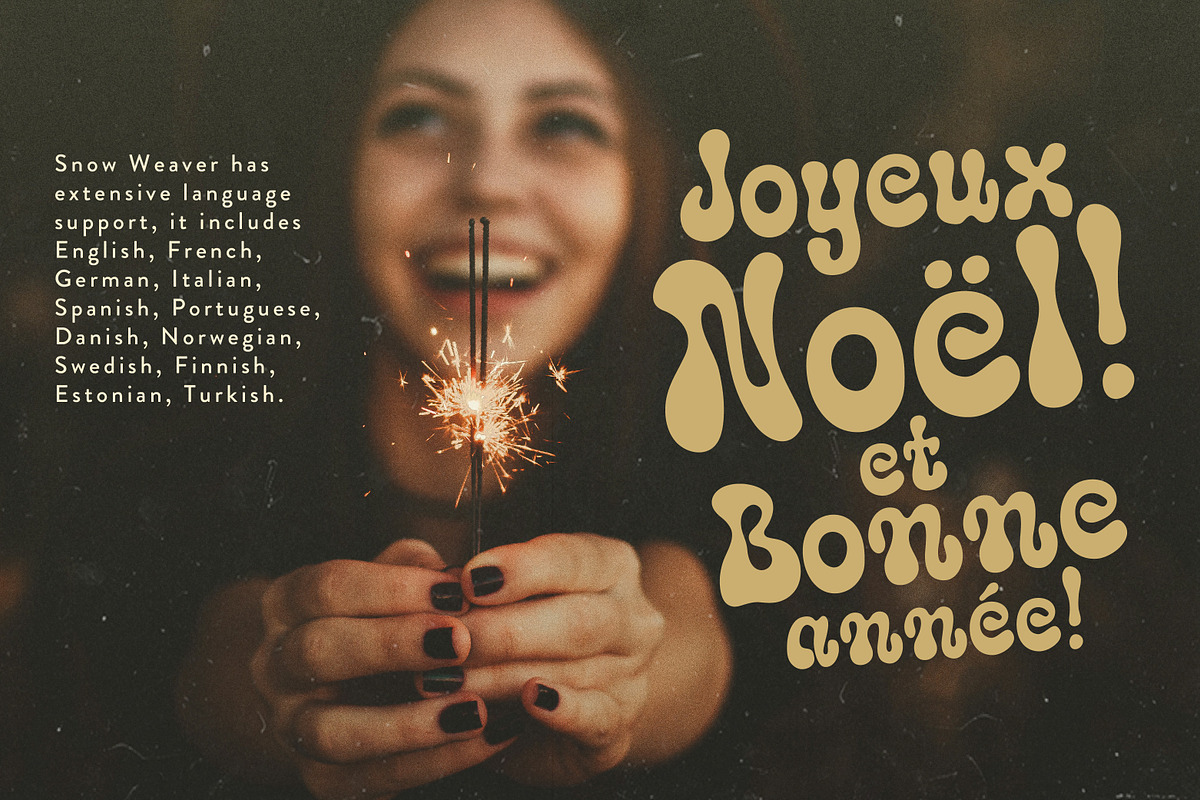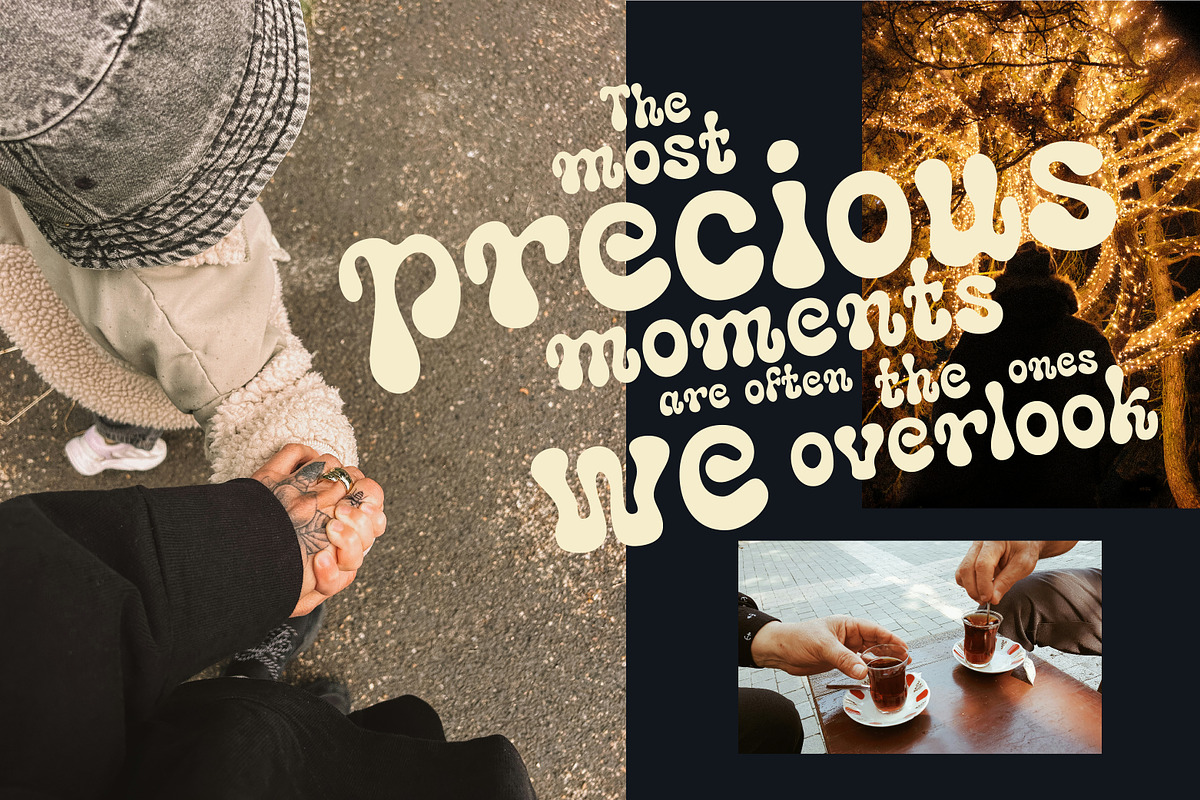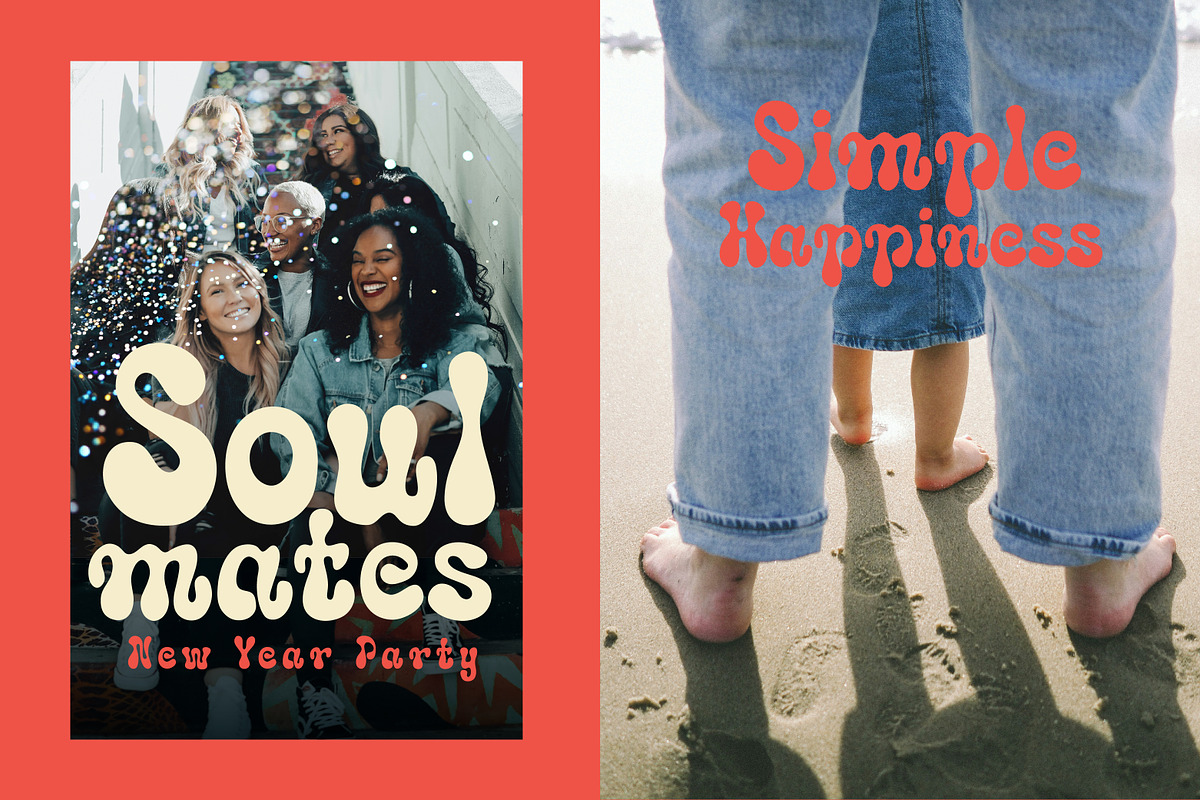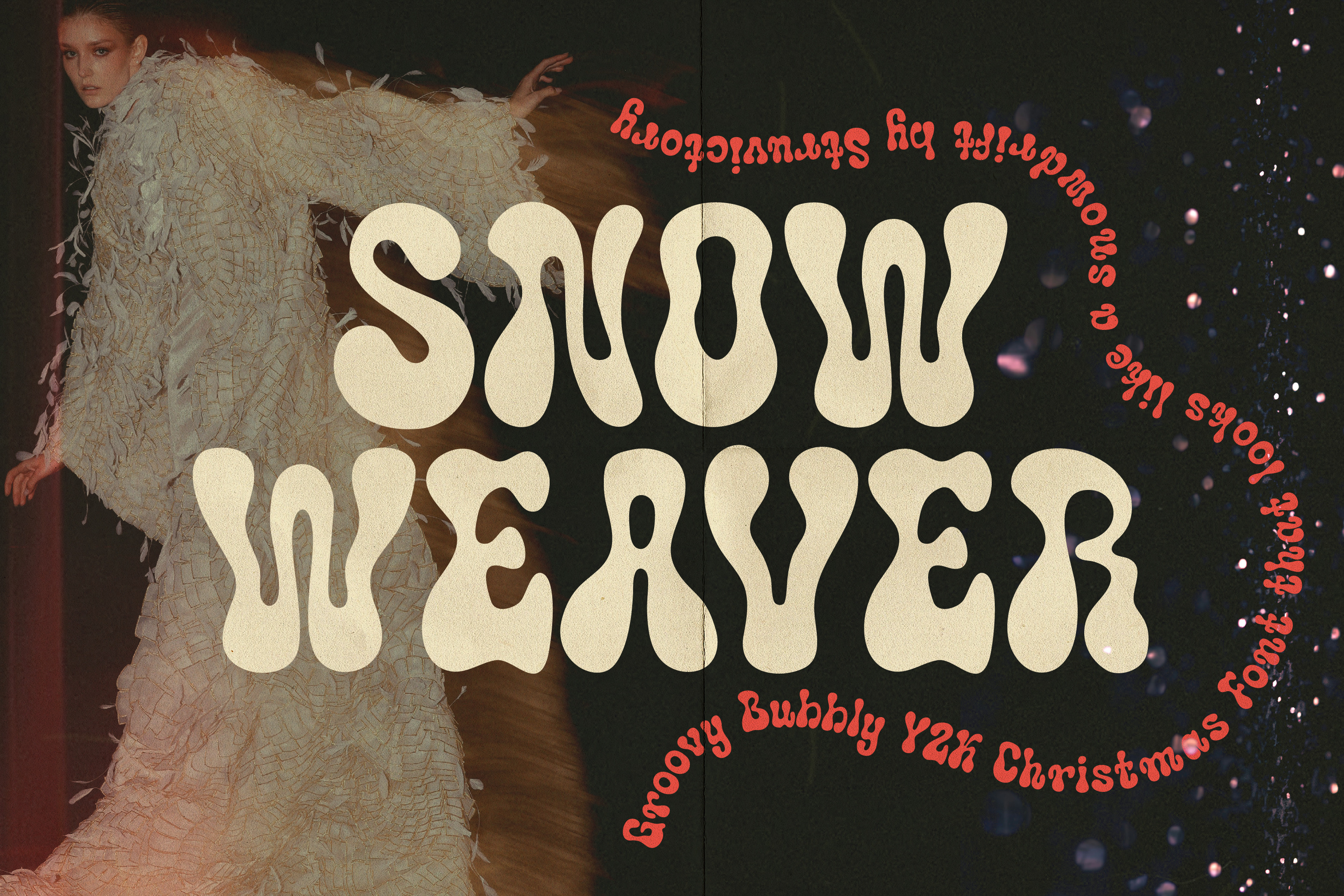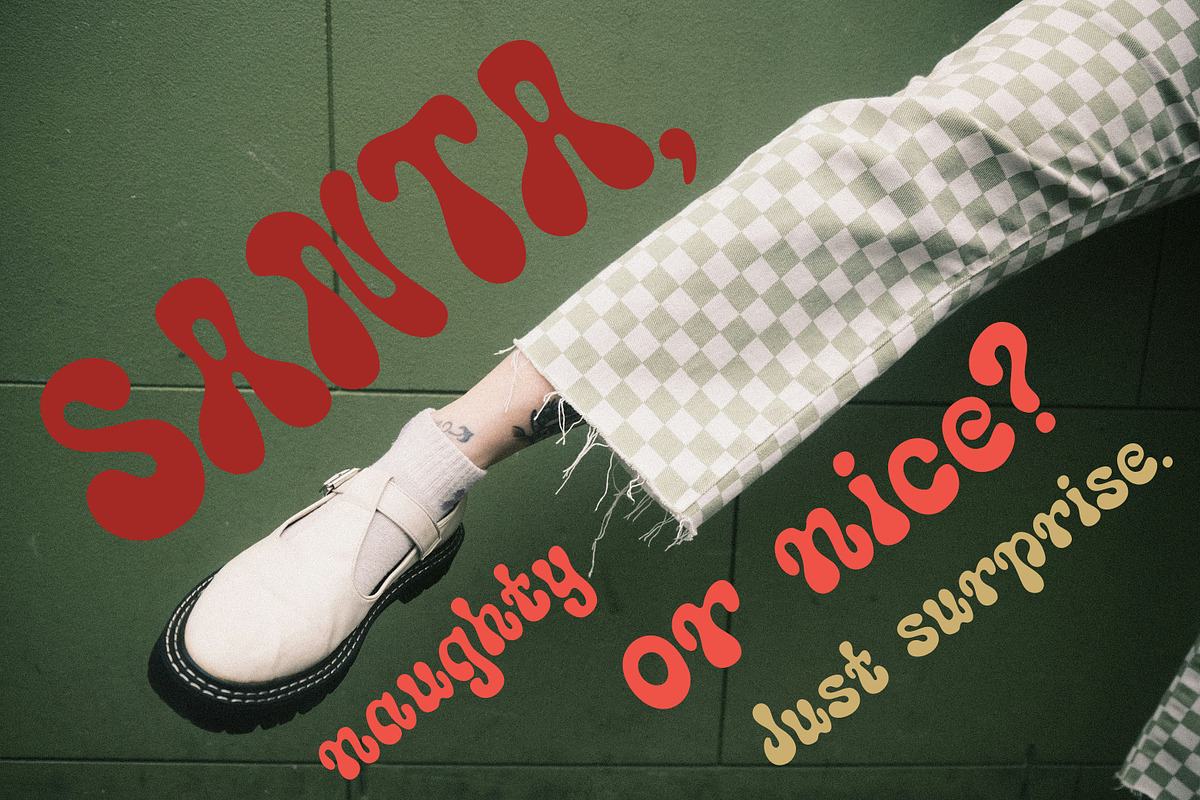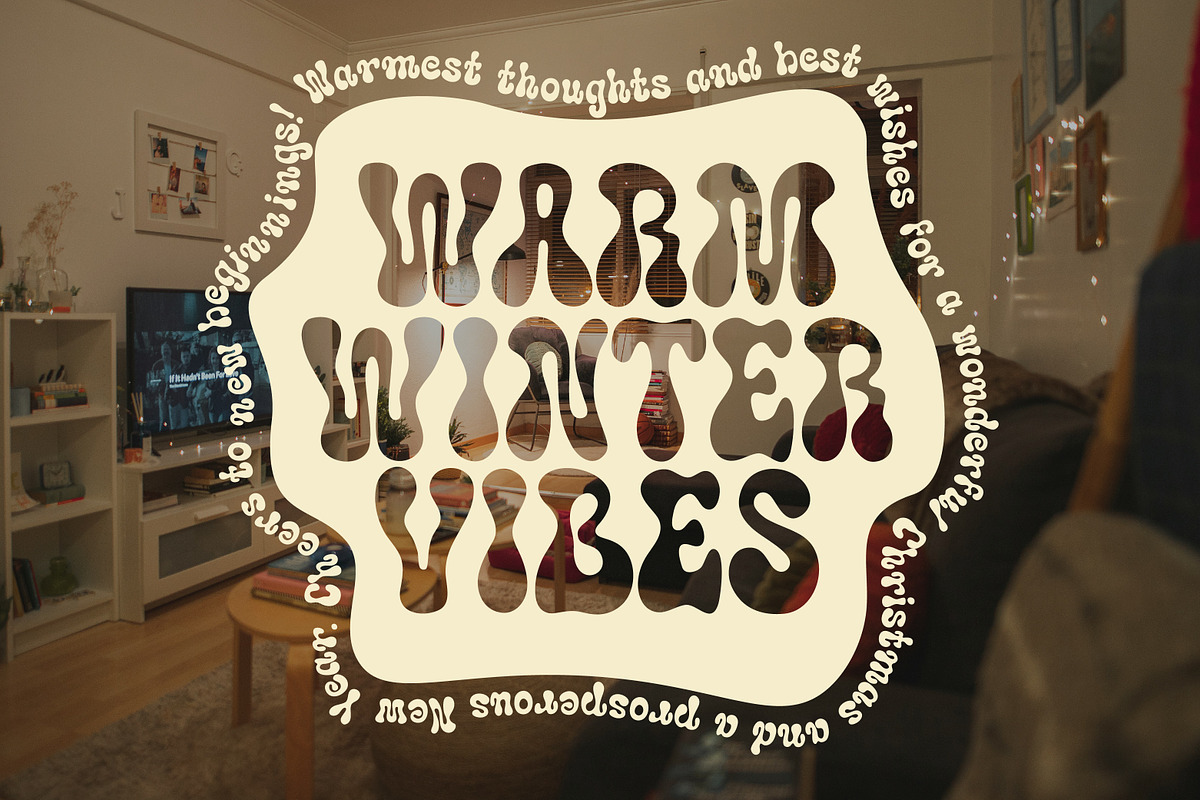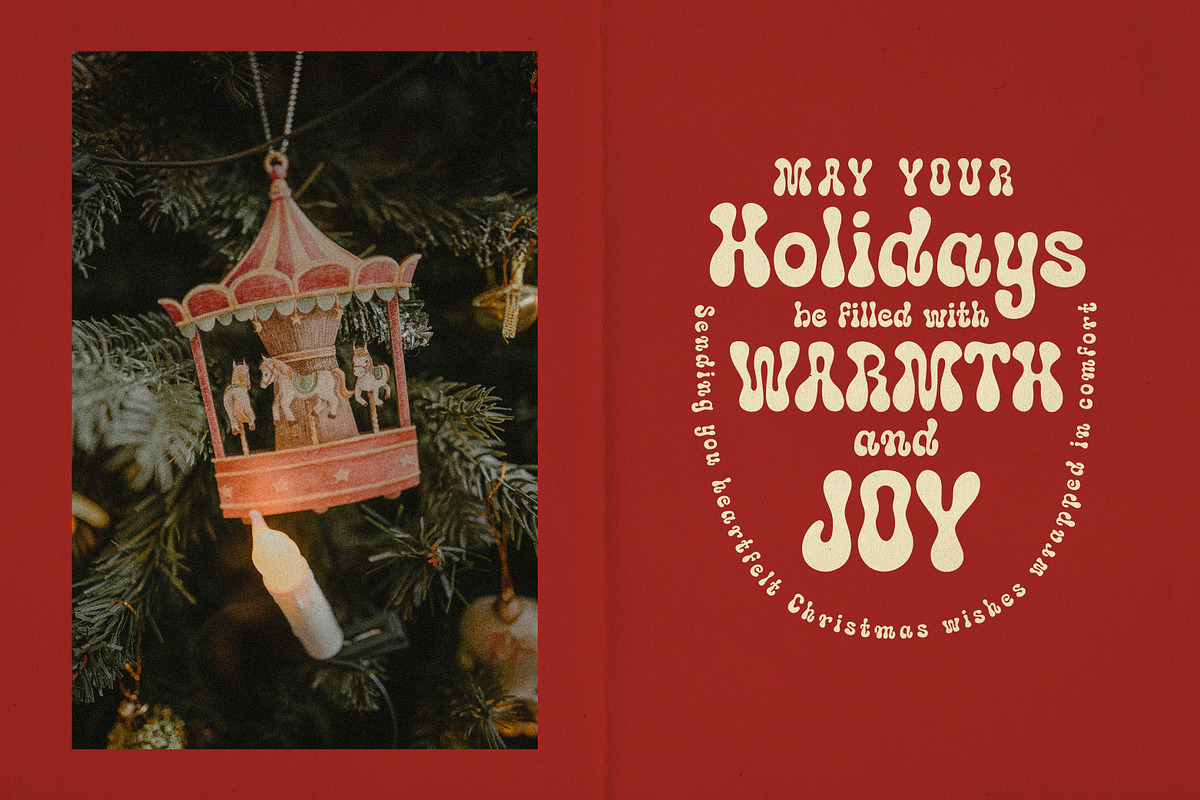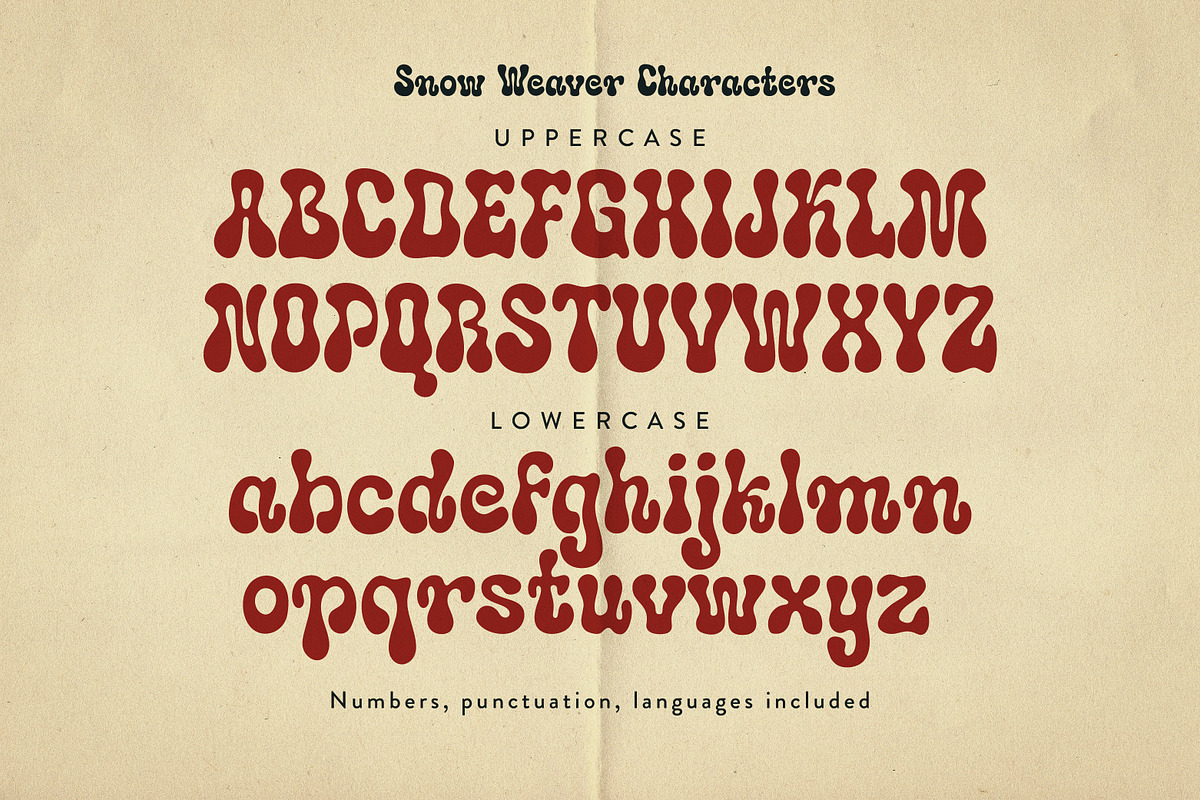
SnowWeaver Bubbly Christmas Font Y2K
Snow Weaver font is the bubbly, bold, and cozy typeface you've been searching for! With its playful curves and whimsical design, this font exudes a sense of warmth and holiday cheer in the Y2K aesthetic. The outlines of the font resemble snowdrifts, adding an extra touch of winter magic. Perfect for adding a touch of festive magic to your Christmas designs, Snow Weaver is ideal for creating cozy winter graphics, cheerful greeting cards, and joyful holiday posters. Embrace the spirit of the season with Snow Weaver font and infuse your projects with a sense of whimsy and comfort.
Snow Weaver supports the most popular latin-based languages, you can check the symbol you need by typing a couple of words in the font preview box.